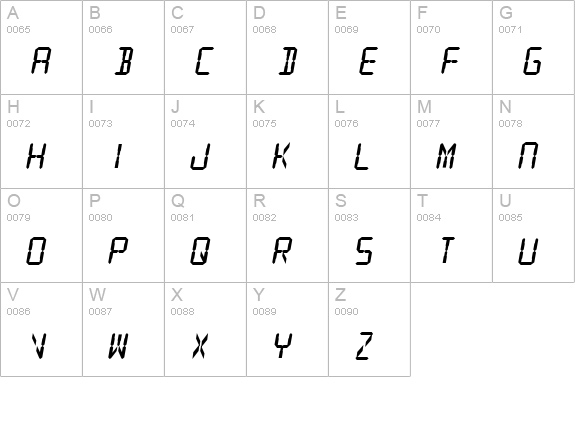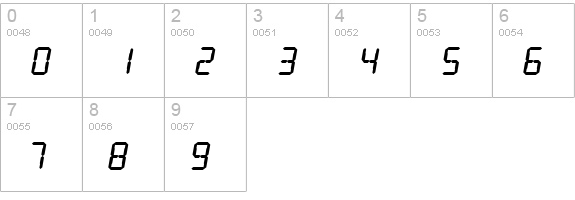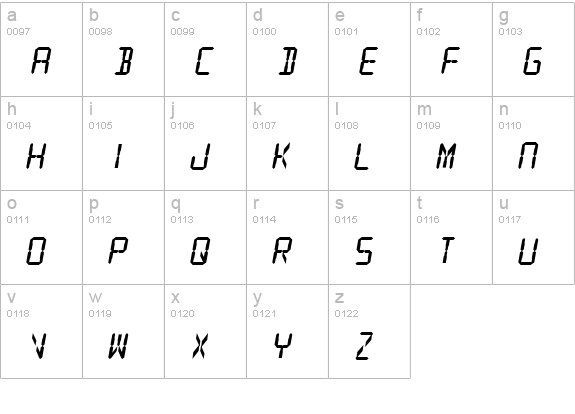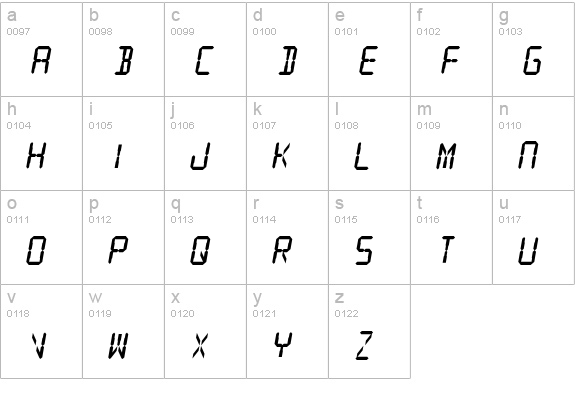
Digital Readout Thick Font Details
Digital Readout Thick font is a modern and bold typeface that is perfect for making a statement in your design projects. Its digital-inspired appearance gives a futuristic and tech-savvy vibe, making it ideal for digital displays, tech-related designs, and modern branding. The thick strokes and sharp edges of this font exude strength and confidence, making it a great choice for headlines and attention-grabbing text. Best of all, Digital Readout Thick font is available for free download at FontsMarket.com. This means you can easily add this eye-catching font to your collection without any cost. Don't miss out on the opportunity to enhance your designs with the impactful and stylish Digital Readout Thick font today!